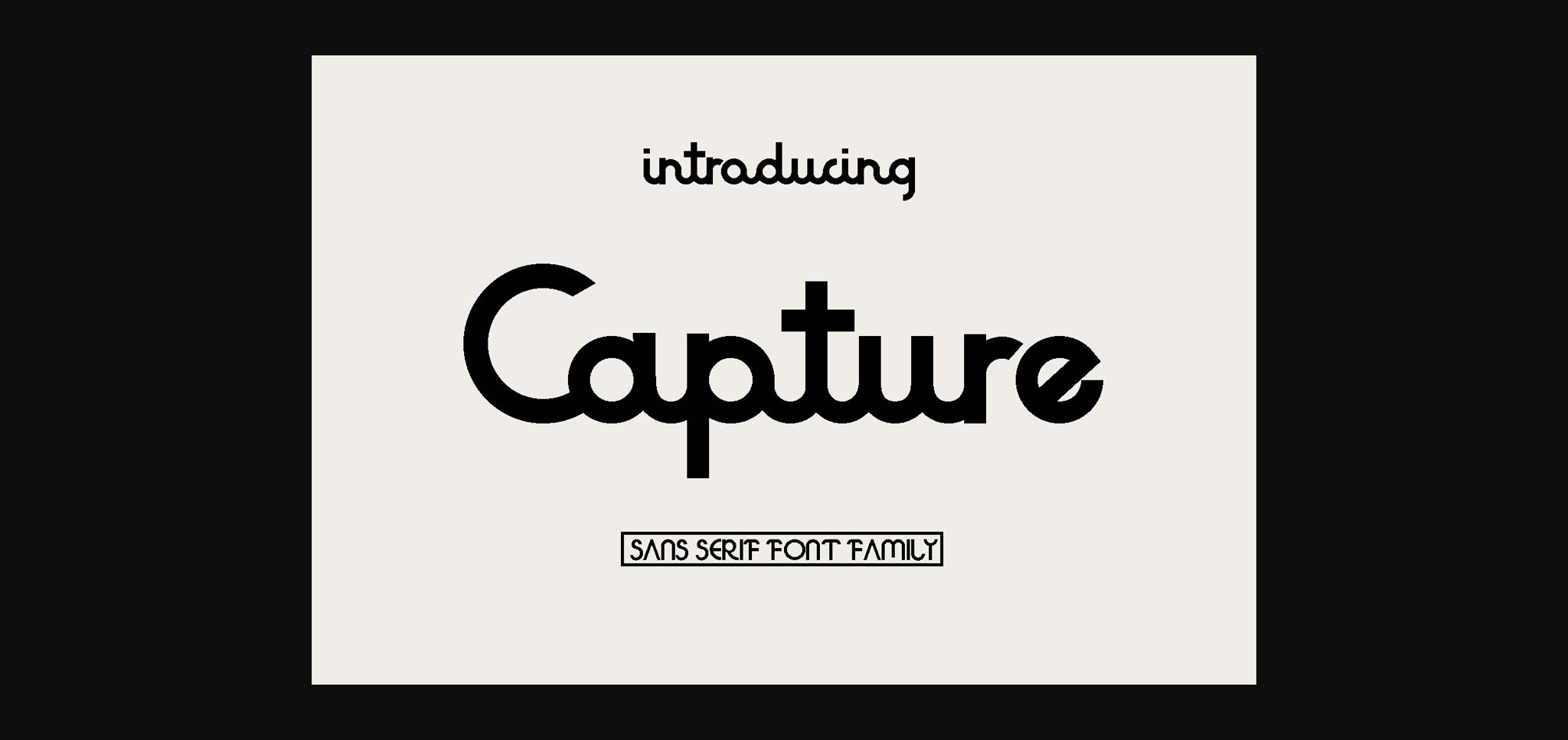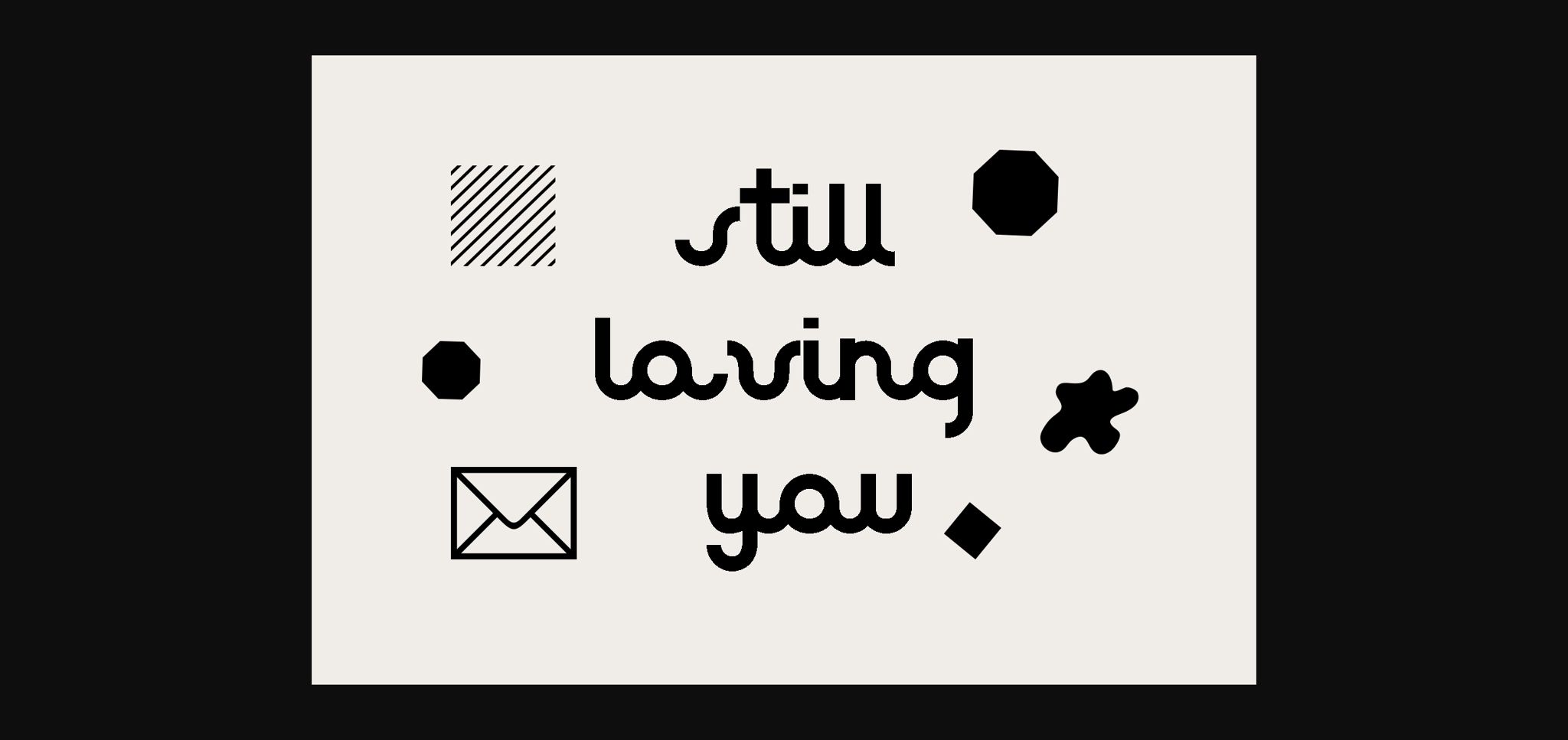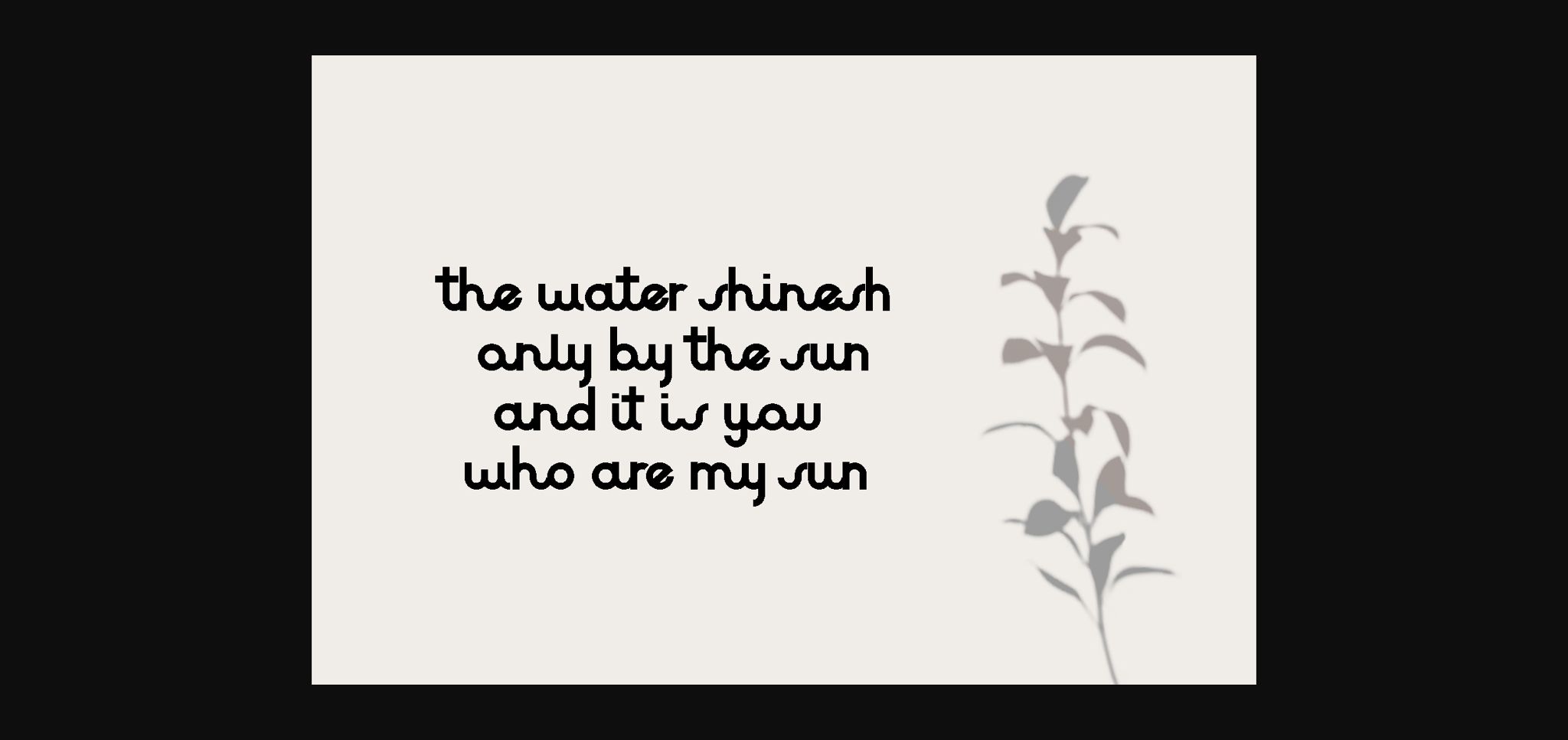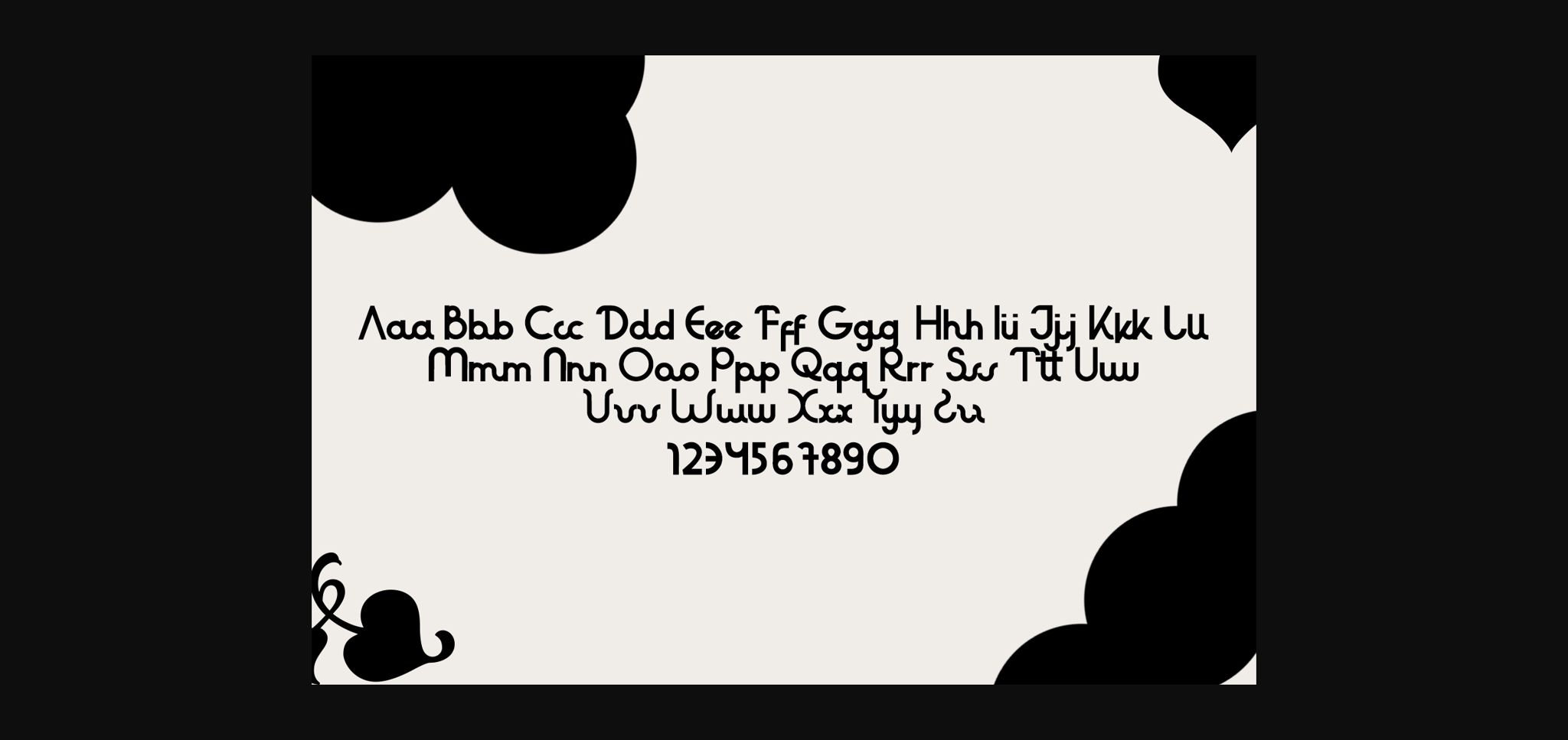
Capture is a playful and cute monoline sans serif font that will turn any design idea into an outstanding piece of art. It will deliver any message with grace, confidence, and style.